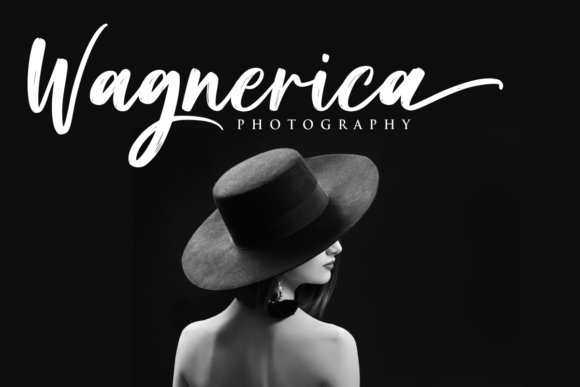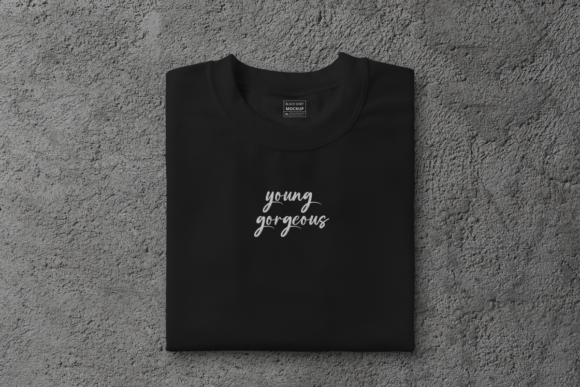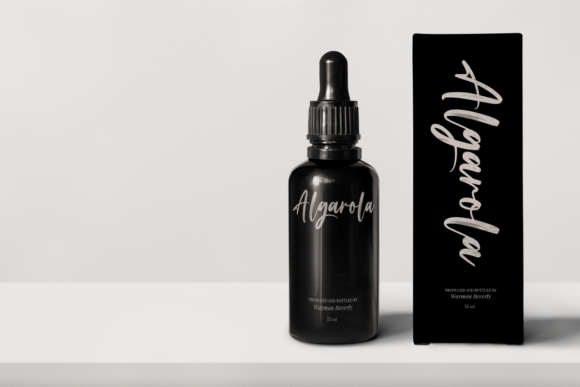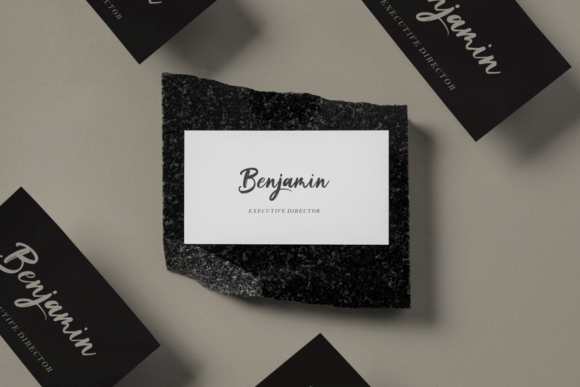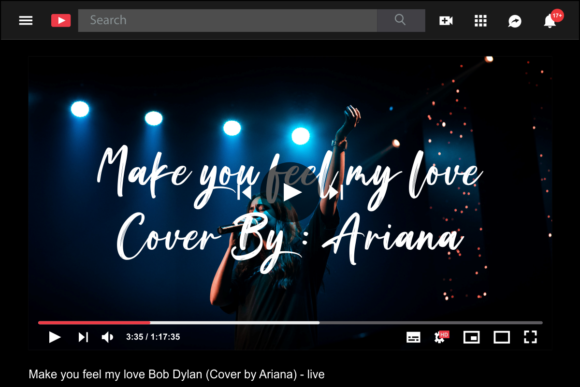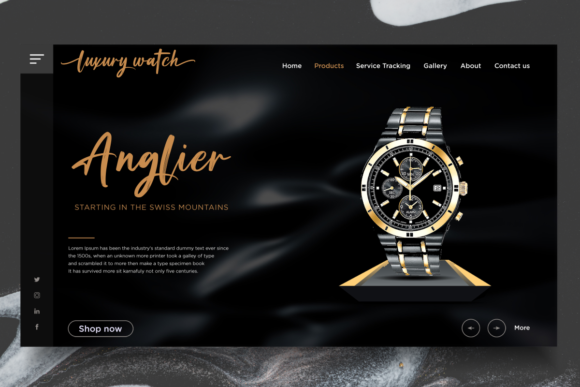
Introducing Brush Signature Font: Elevate Your Designs with Elegance
In the world of typography, few fonts manage to capture the essence of elegance and sophistication as beautifully as the Brush Signature font. This delicate and cursive handwritten font is a gem for designers and crafters looking to add a touch of personal flair to their projects. With its gentle strokes and fluid connections, Brush Signature is poised to become your go-to choice for a variety of design ideas.
The Charm of Brush Signature
Brush Signature stands out with its unique blend of delicacy and elegance. Its cursive, handwritten style evokes a sense of warmth and intimacy, making it perfect for projects that require a personal touch. Whether you’re designing wedding invitations, crafting beautiful quotes, or creating stunning branding materials, Brush Signature brings a level of sophistication that’s hard to match.
PUA Encoding for Ease of Use
One of the key features that sets Brush Signature apart is its PUA (Private Use Area) encoding. This means that the font includes a range of glyphs and swashes that are easily accessible, allowing you to add intricate details and flourishes to your designs with just a few clicks. The PUA encoding ensures that you can make the most of the font’s capabilities, making it not only beautiful but also highly functional.
The versatility of Brush Signature is one of its most compelling attributes. This font can be used across a wide array of design projects, including but not limited to:
- Wedding and Event Stationery: Add a touch of romance and elegance to your wedding invitations, save the dates, and thank you cards.
- Branding and Packaging: Elevate your brand with a sophisticated and memorable logo or packaging design.
- Social Media Graphics: Stand out on social media with beautifully designed quotes, announcements, and promotional materials.
- DIY and Crafting: Perfect for crafters, this font can be used for making personalized gifts, journals, and other handmade items.
Why Choose Brush Signature?
With so many fonts available, why should Brush Signature be your choice? Here are a few reasons:
- Elegance: It brings a level of elegance and sophistication that’s hard to find in other fonts.
- Versatility: Its versatility means you can use it across various projects, making it a valuable addition to your font library.
- Accessibility: The PUA encoding makes it easy to access a wide range of glyphs and swashes, allowing for more creative freedom.
Brush Signature is more than just a font; it’s a design element that can elevate your projects to new heights of elegance and sophistication. Its delicate and cursive handwritten style, combined with PUA encoding for easy access to glyphs and swashes, makes it an invaluable tool for designers and crafters alike. Whether you’re working on a professional project or a personal crafting endeavor, Brush Signature is sure to leave a lasting impression.